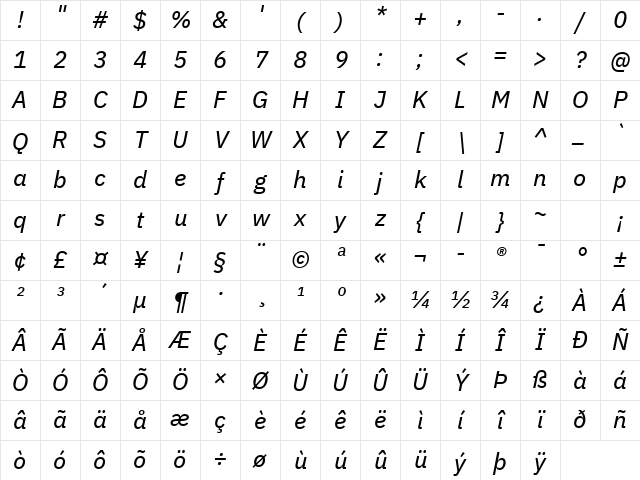
IBM Plex Sans Text Italic
Foundry: Bold Monday
Designer: Mike Abbink, Paul van der Laan, Pieter van Rosmalen
IBM Plex Sans Text Family
Design Context for IBM Plex Sans Text
IBM Plex Sans Text is a composed and adaptable typeface that performs quietly and consistently across a wide range of design contexts. The slanted form adds forward momentum and visual energy.
Pro Tip: Use IBM Plex Sans Text for emphasis, pull quotes, and subheadings where its slanted energy can add rhythm to the layout.